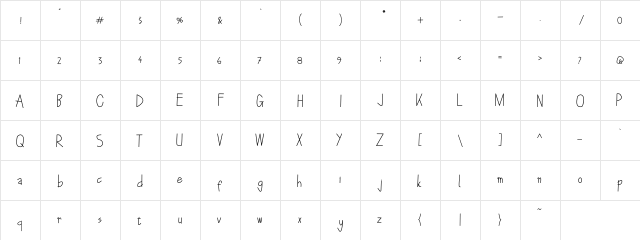
Sweet Corn Regular
Design Context for Sweet Corn Typeface
Sweet Corn takes a measured approach to typography — its balanced proportions and neutral character make it a reliable workhorse for both digital and print work.